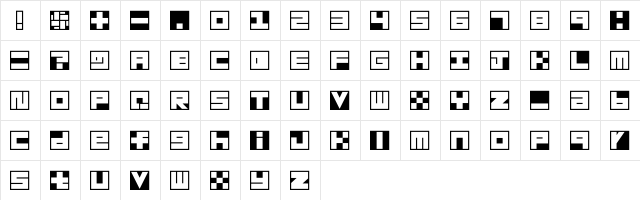
Habesha_Blocks Regular
Habesha_Blocks is a composed and adaptable typeface that performs quietly and consistently across a wide range of design contexts.